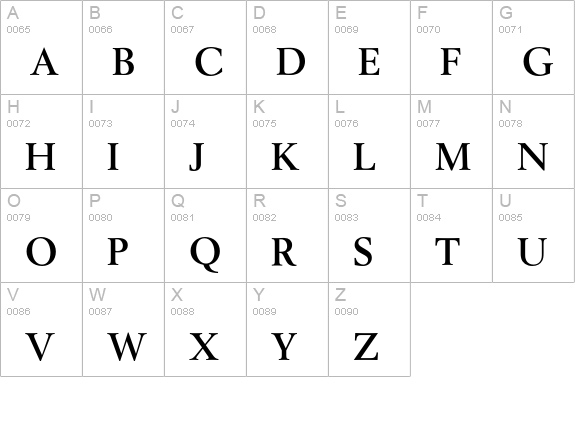
BerlingEF-Bold is a strong, high-contrast variant in the BerlingEF typeface family \xE2\x80\x94 well suited to headlines, attention-grabbing titles, and strong calls-to-action.
BerlingEF-Bold is a classic and elegant font that exudes sophistication and style. With its bold and impactful design, this typeface commands attention and makes a statement. The strong, clean lines and distinctive letterforms of BerlingEF-Bold make it perfect for a wide range of design projects, from logos to headlines to signage. What makes BerlingEF-Bold even more impressive is that it is available for free download at FontsMarket.com. This means that you can easily access and use this beautiful font without any cost, making it a valuable addition to your font library. Whether you're a professional designer looking for a versatile and eye-catching typeface, or a hobbyist seeking to elevate your creative projects, BerlingEF-Bold is sure to deliver. Download it now and let your designs shine with this exceptional font.